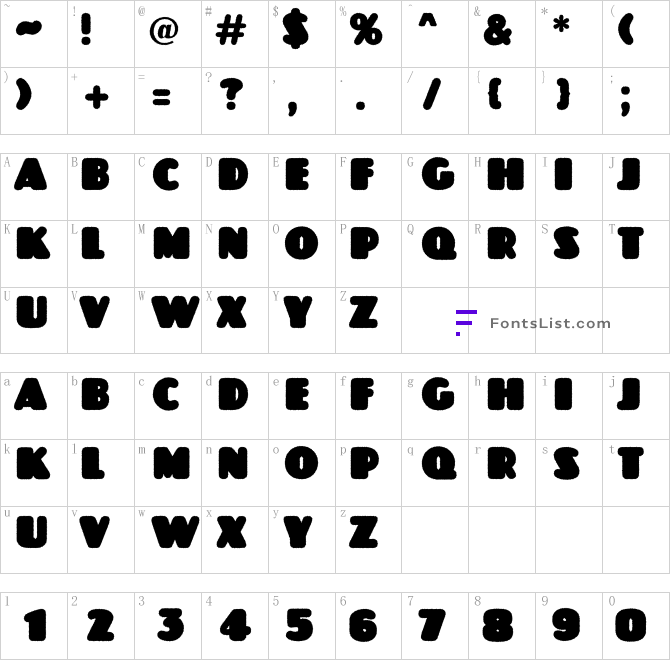
- Font Name:a_JasperTtlRndRgNord
a_JasperTtlRndRgNord.ttf is a very beautiful artistic font, a_JasperTtlRndRgNord.ttf is widely used in the design and printing of various books and pictures,a_JasperTtlRndRgNord.ttf has a strong visual impact,a_JasperTtlRndRgNord.ttf is a commonly used font in newspapers, magazines and books, and is used in posters, e-commerce Poster design, store design, logo design, font design and other fields.a_JasperTtlRndRgNord.